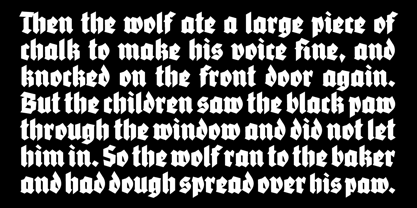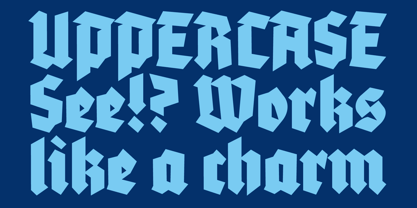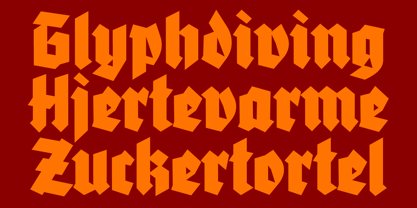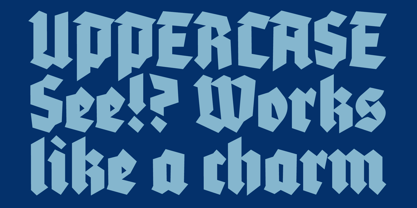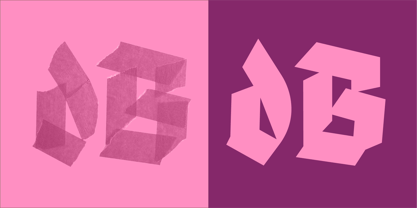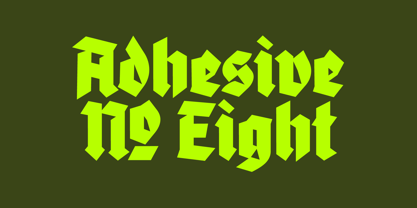
Adhesive Nr. Eight
by phospho
The Adhesive Nr. Eight Font Family was designed by Roland Hörmann and published by phospho. Adhesive Nr. Eight contains 1 styles.
Adhesive Nr. Eight was developed as a streamlined variation of the heavily textured Adhesive Nr. Seven blackletter font, responding to frequent requests for a clean, minimalist version.
The foundation remains unchanged: adhesive tape construction, drawing on the Fraktur majuscules of Tannenberg Fett and the minuscules of Roberts Koch’s Schmale Deutsche Anzeigenschrift. In this reinterpretation, hard-to-read letters by modern standards (F, H, K, Z, k, long s, x, y, z) were reshaped with influences from grotesque typefaces. This transformation also makes the font uniquely suited for uses where blackletter typefaces typically fail — such as setting text in all capital letters.
With its neutral, refined aesthetic, Adhesive Nr. Eight expands its versatility across a broader range of applications while staying true to the distinctive „Adhesive methodology“.
About phospho
Located in a central district of Vienna, Austria, Roland Hörmann runs phospho; a studio that specializes in both graphic and type design. “I am always excited about graphic design jobs where I can bring in my lettering skills as a type designer,” Roland says. “My fascination for type undoubtedly came from my father’s Letraset catalogues, which I loved tracing letters in as a kid.” In the early Nineties, long before he had decided to study graphic design, Roland began to dabble in type design and created a handful of experimental pixel fonts on the Commodore 64. It wasn’t until 2007, though, that he made his first serious attempts at type design, and in the following year, he published his first typeface, Adhesive Nr. Seven. Since then, he’s seen great success with standout designs like Luxus Brut, a timeless design that breathes the spirit of hand lettered signage of the 1950’s, and Gloss Drop, a wild, hand-lettered typeface that pulses with the spontaneous vibrancy of brush lettering. Roland works alongside Felix Auer, an associated designer who had a hand in creating phospho’s all-caps, display font Aquus. The secret to Roland Hörmann’s success may be his passion project Stadtschrift: an association for the collection, preservation and documentation of historic façade signs. “We save unique signs from being scrapped and put them on display in the public again. So there is a big love for ancient shop signage and their typefaces, and the inspiration I draw from the heritage of the city makes phospho a heartfelt Viennese foundry.”